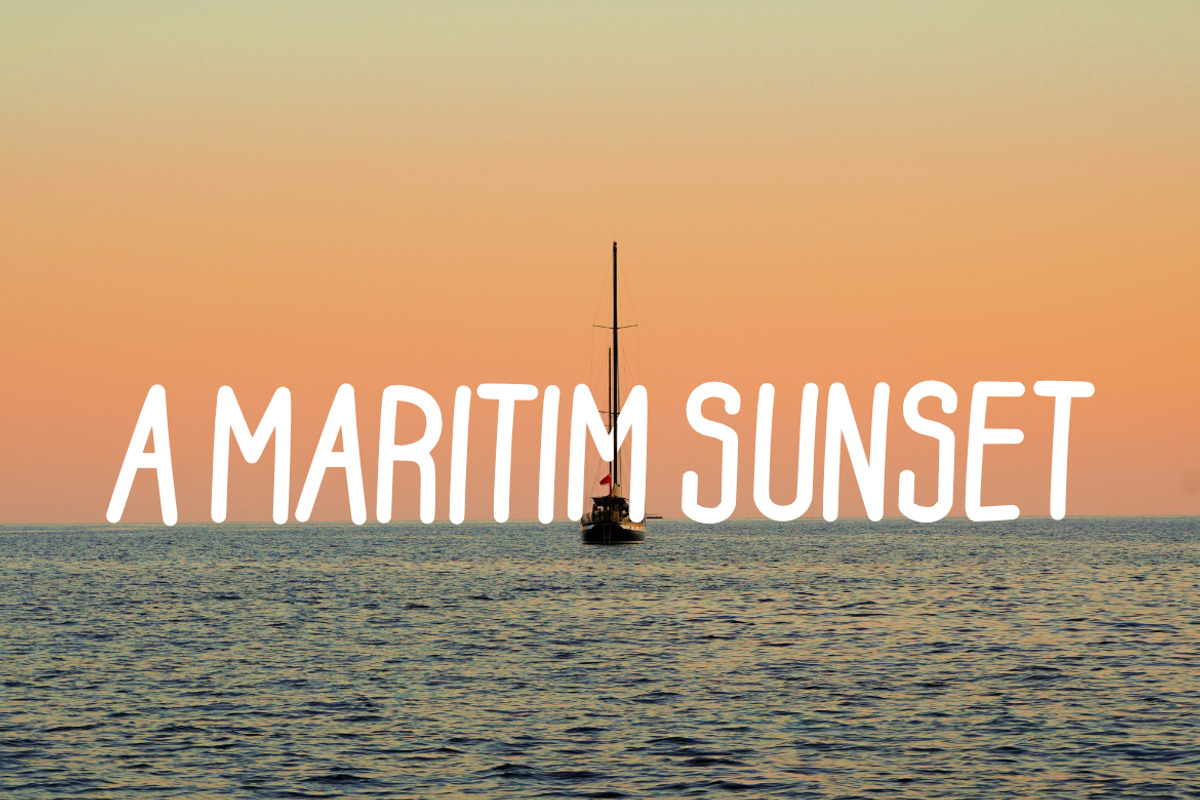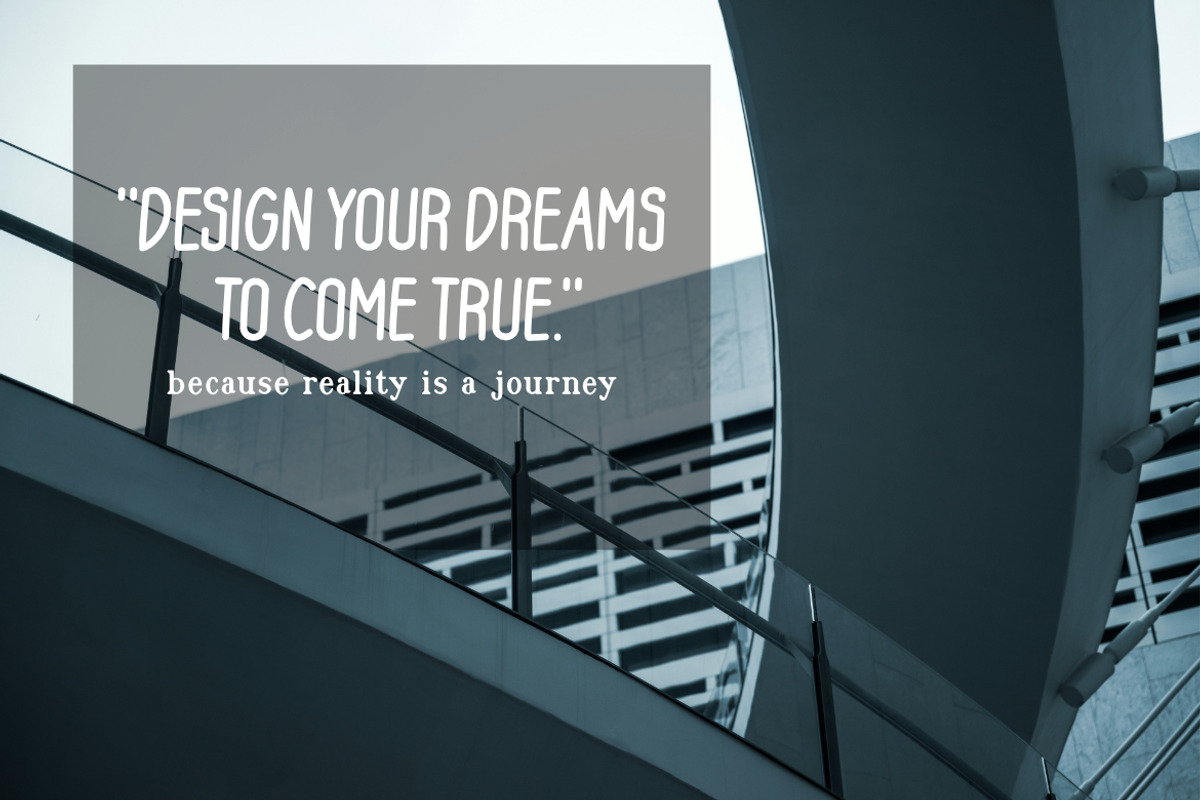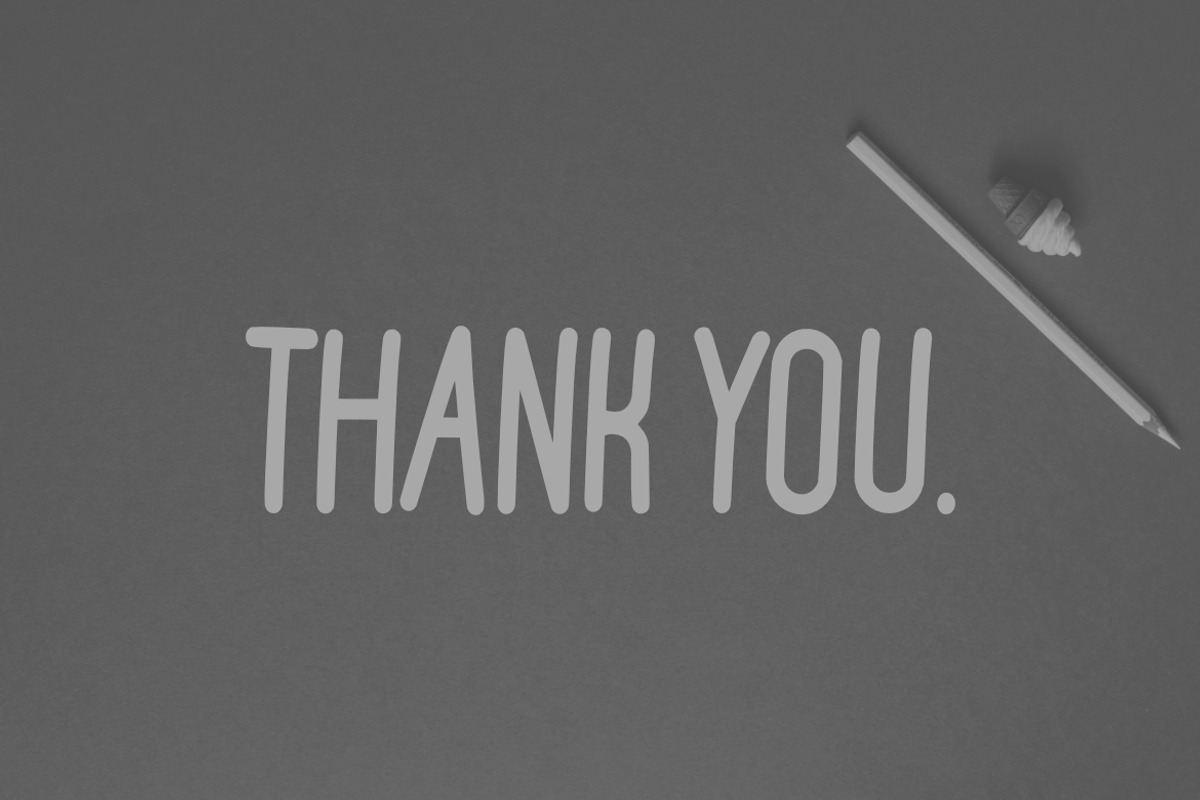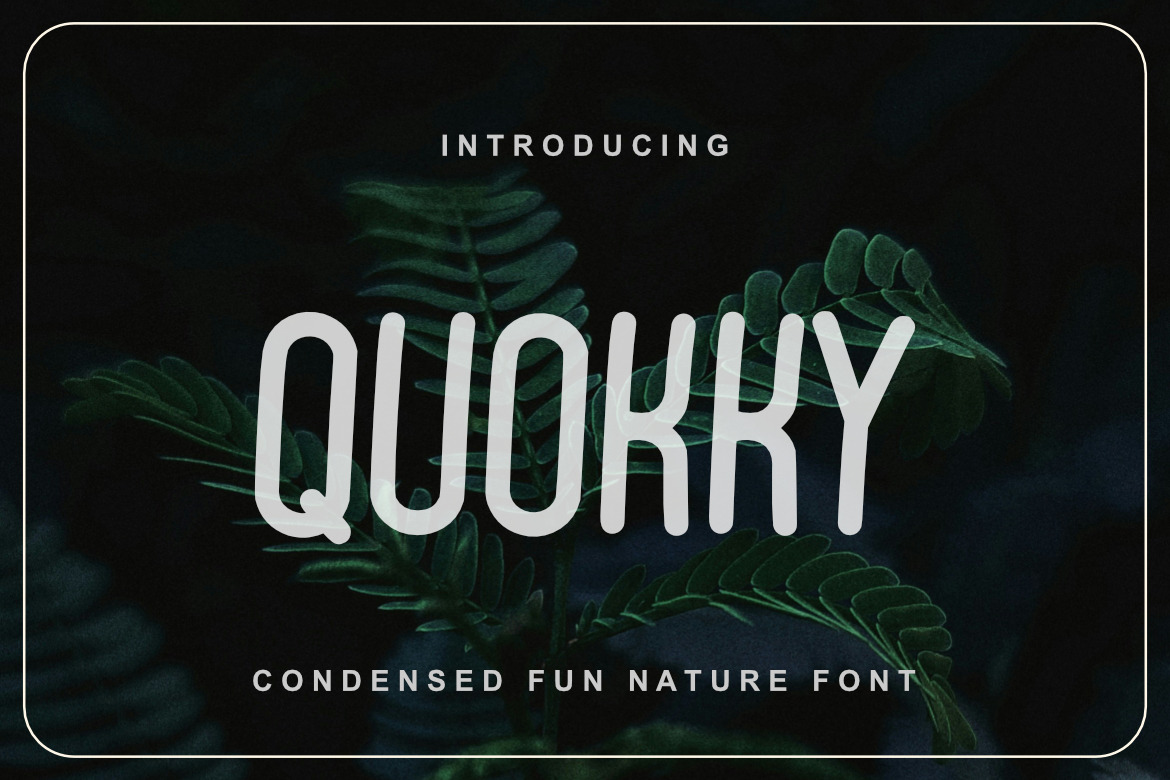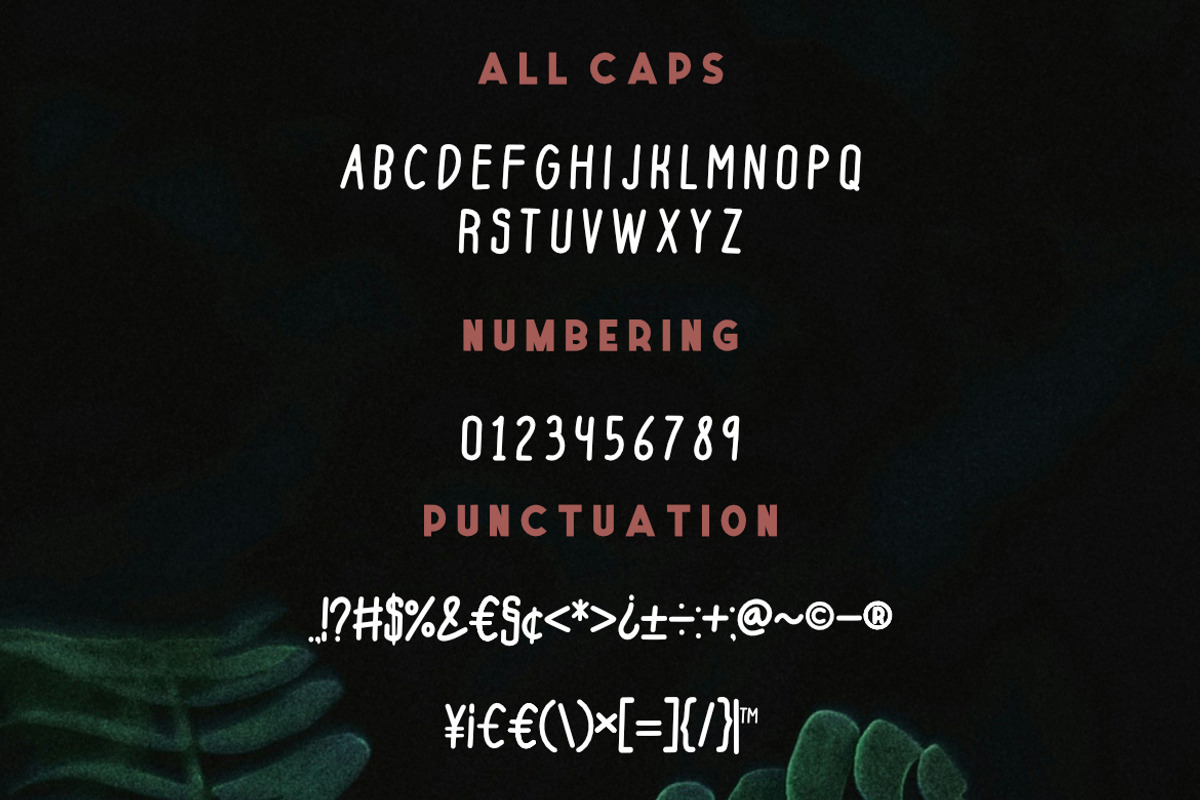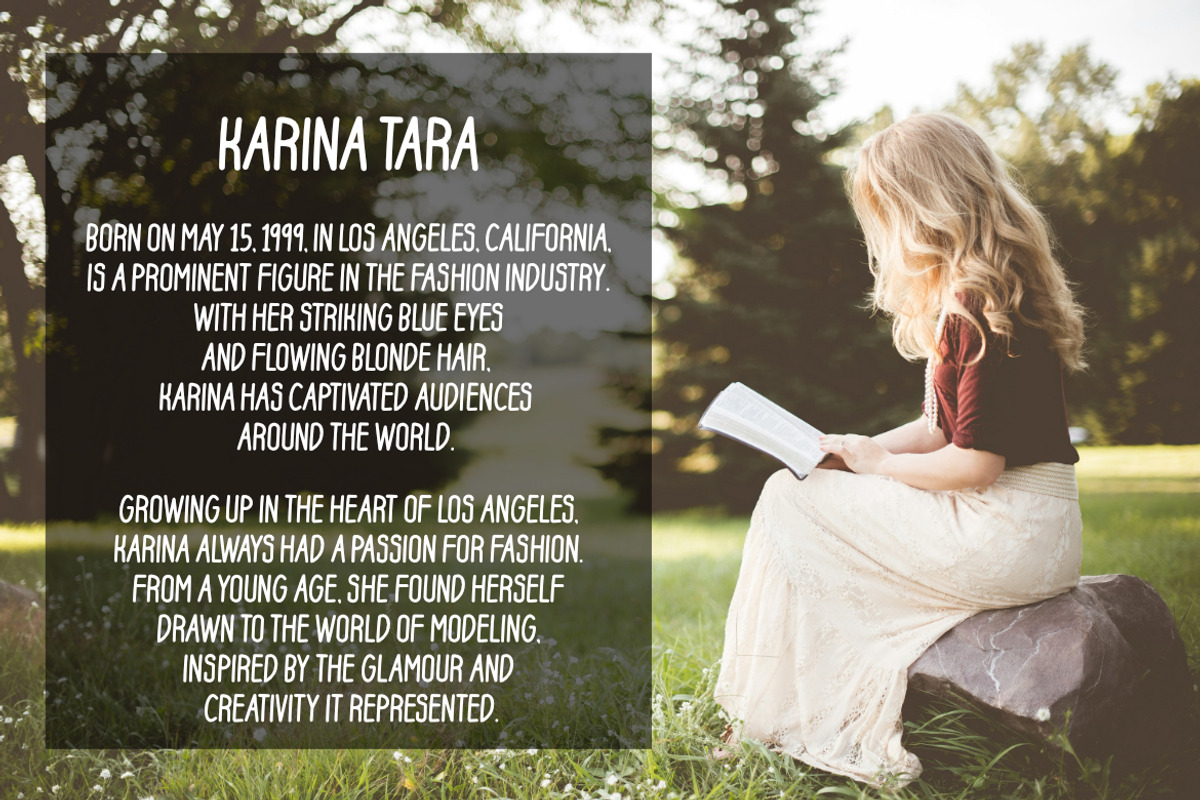
Quokky Condensed Font
Quokky Condensed Fun Nature Font, This font is made with a high premium quality level which you can use as flyers, quotes, posters, banners, packaging, merchandise, logotypes and much more.